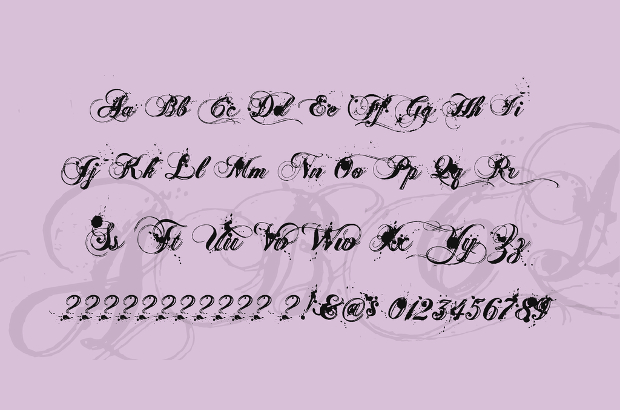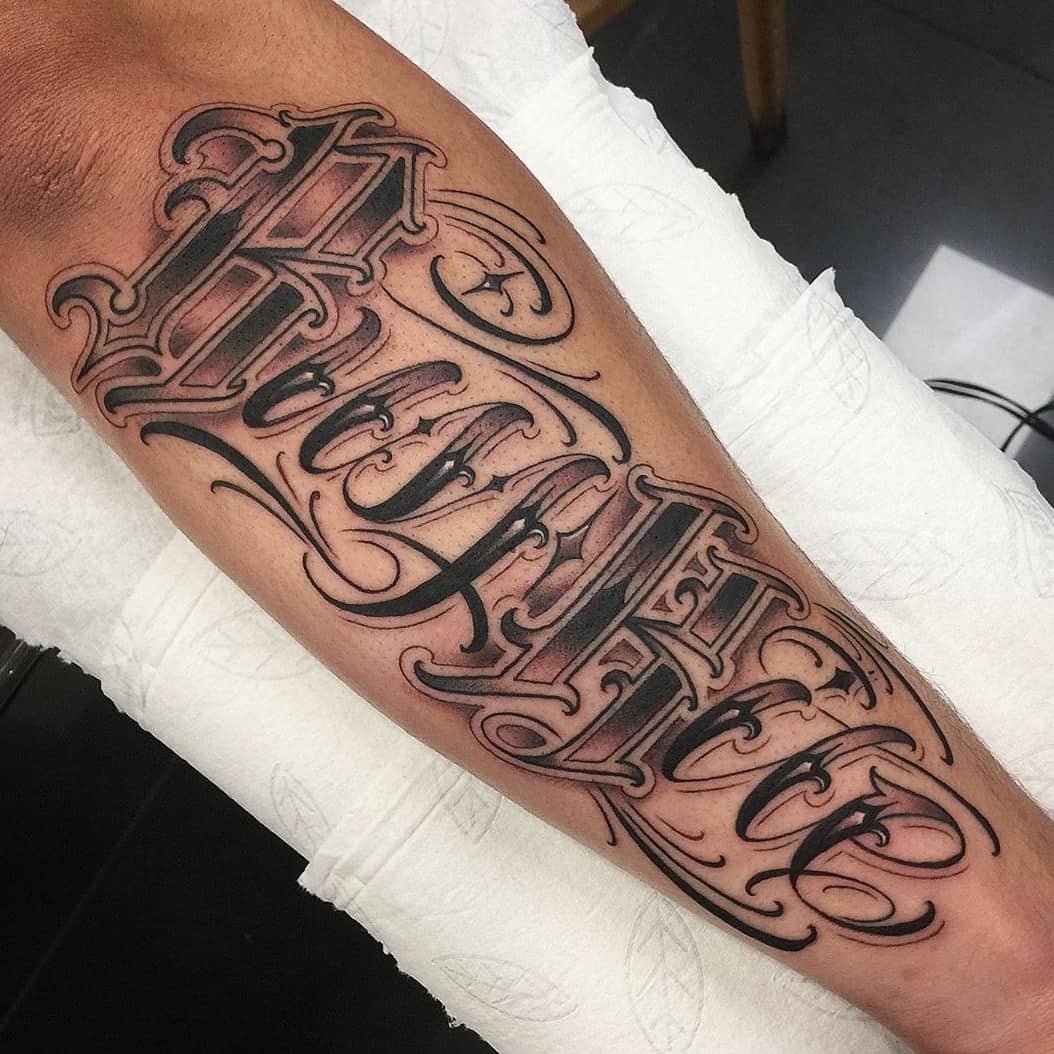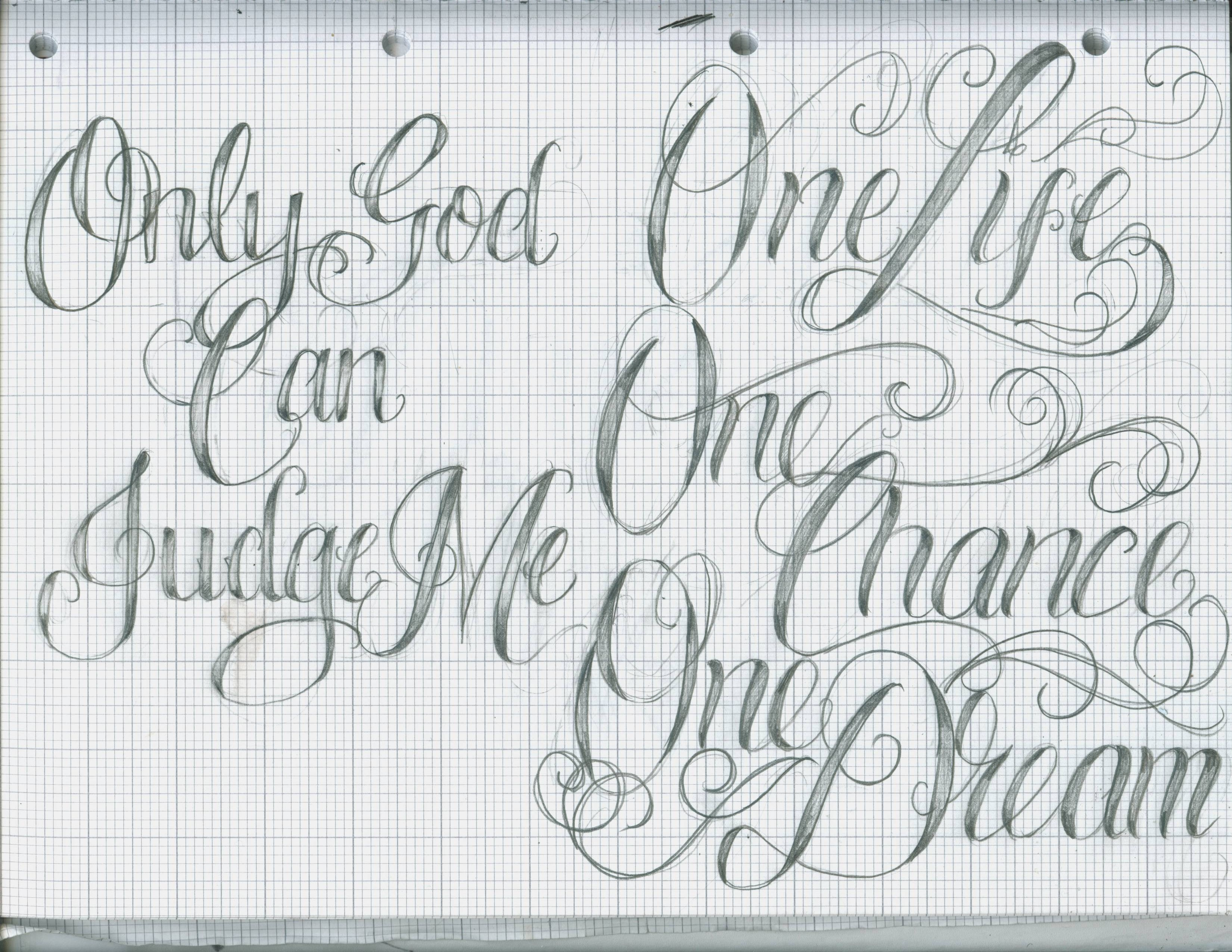
For more artistic styles you will want to look at calligraphy or hand-lettering. Scrawl Cursive designed by Tanya David is a typical font family of cursive style.
There are so many ways to use tattoo cursive letters to express yourself with an original tattoo.
Letter fonts for tattoos cursive. Chika Tattoo is a typical Tattoostyle Font. 9463 search results for tattoo cursive letter k. Tattoos Letters and fonts Symbols emoji.
Tattoo fonts alphabet cursive tattoo lettering cursive styles and. If you are getting a tattoo yourself that qualifies for personal-use and any font would be free to use. In the Arabic Latin and Cyrillic alphabets many or all letters in a word are connected sometimes making a word one single complex stroke.
Cursive Tattoo Letters Cursive Fonts Alphabet Best Tattoo Fonts Tattoo Font For Men Tattoo Fonts Alphabet Cursive Tattoos Tattoo Lettering Styles Initial Tattoo Writing Tattoos. Categories popular designers optional web font download and links to similar fonts. These are cursive tattoo fonts that create an impact in typographic designs.
Typography fonts hand lettering tattoo fonts cursive tattoo writing fonts tattoo script penmanship tattoo fonts for names tattoos of names roman numeral tattoo font. The line work is sharp fine needlework in black for the major letter. The Chinostyle comes from the Gangs of the USA with latin roots They often have Chist-Symbols.
Scrawl Cursive by Tanya David To download free cursive fonts you can take a look at our collection of cursive fonts. Magnolia Sky fontMagnolia font svgMagnolia font for cricutTattoo lettering fontsCursive tattoo fontLettering scriptsBest cursive fonts. You could also use this type of tattoo design to announce a new love a family member or perhaps announce your upcoming wedding.
Cursive tattoo fonts which are custom designed by the many tattoo artists across the globe require a lot of artistic talent and personal creativity. Dan heb je geluk want hier zijn ze. The different is the thorn in every letterChika Tattoo is best for all Tattooartists and TattoofansYou can use it to make Tattooflashs for your Tattoostudio.
Cursive Hebrew Fonts Alfabeto Completo hebrew fonts font script handwriting tattoo cursive calligraphy simply lettering hand tattoos alphabet windows styles typography uploaded user cursive fonts hebrew font ol myfonts calligraphy lopez styles ortiz cool verse desktop decorative jewish bible aw complete poster waw hebrew cursive font groovy deviantart hebrew cursive font handwriting. Fortunately we have many unique tattoo font styles for men and women such as calligraphy cursive and traditional styles. See more ideas about graffiti lettering fonts tattoo fonts cursive tattoo lettering fonts.
Cursive tattoo fonts which are custom designed by the many tattoo artists across the globe require a lot of artistic talent and personal creativity. Print free large cursive letter j. This Font is the Sisterfont of Chinotattoo.
If you are looking to get a j letter tattoo design look no further because we have created a record of more t. Tattoo cursive letters a to z are a good way to introduce a new tattoo idea. Printable letter i in.
The cursive handwriting style is functional and intended to be used for everyday writing. Home Tattoos Cute Graffiti Gothic More Graphic fonts Alphabets. A unique feature of this font is that many capital letters will join when preceding lower case letters which will create much more real flow.
Letters may be joined or unjoined. Cursive fonts mimic the style of human penmanship where the letters flow together. 50 Free Cursive Tattoo Fonts for Download - Designzzz.